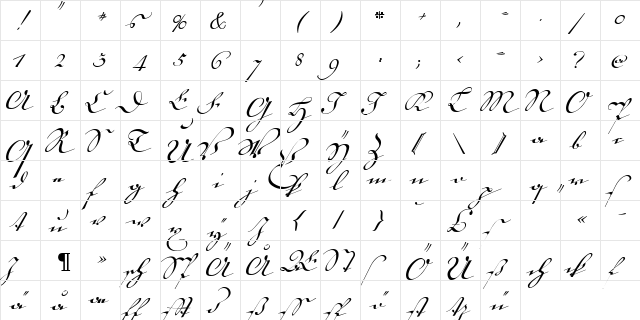
18th Century Kurrent Alternates Regular
| Foundry | Peter Wiegel |
| Designer | Peter Wiegel |
Design Context for 18th Century Kurrent Alternates Typeface
18th Century Kurrent Alternates is a composed and adaptable typeface that performs quietly and consistently across a wide range of design contexts.